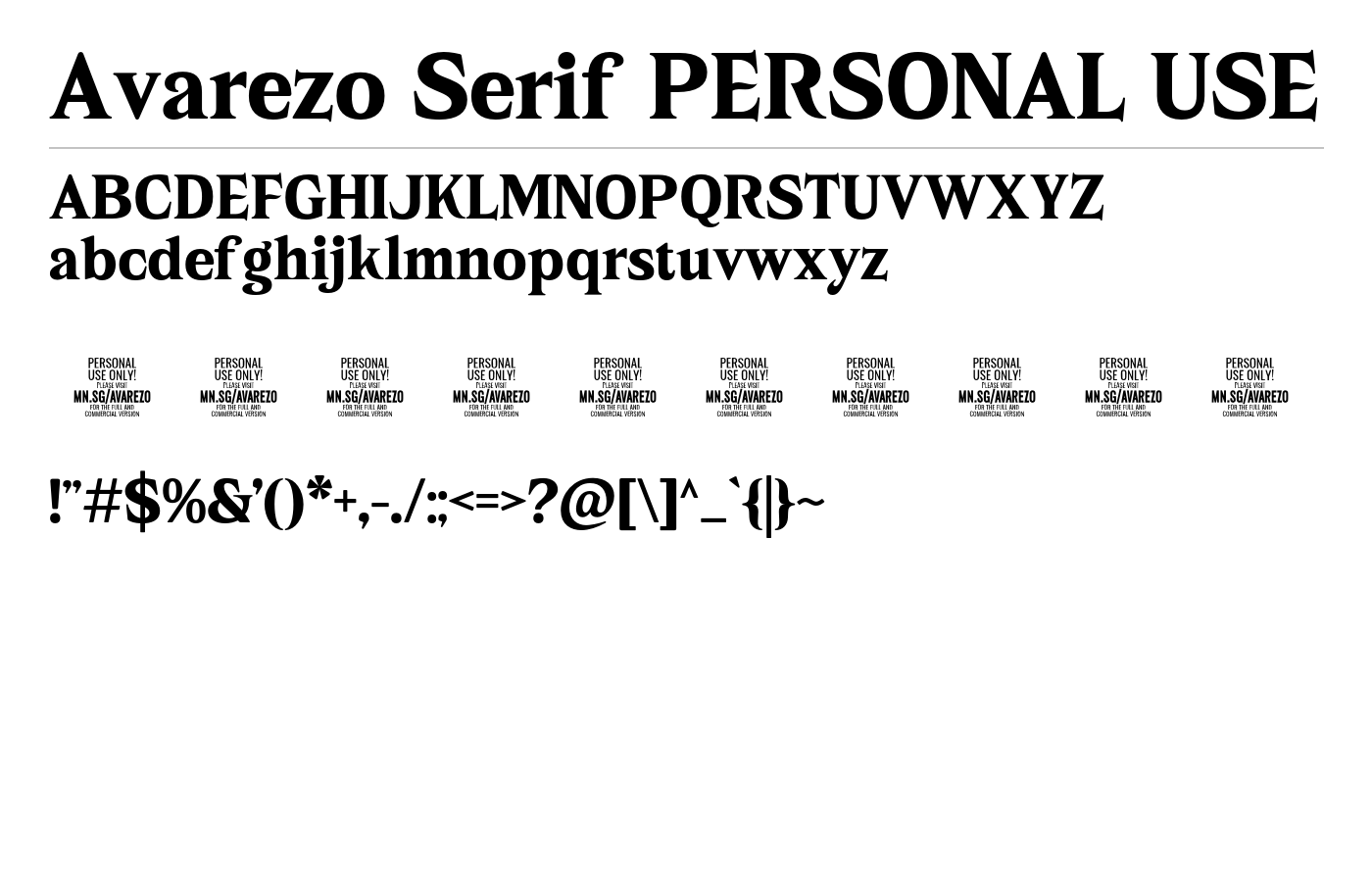
Avarezo Serif is a bold, classic serif font with strong contrast between thick and thin strokes, featuring traditional bracketed serifs and elegant, slightly condensed letterforms. Its solid structure and refined details make it ideal for sophisticated editorial design, logos, and headlines where a timeless and authoritative presence is desired. This font conveys a sense of professionalism and heritage, perfect for brands seeking a classic yet impactful look.
Avarezo Serif PERSONAL USE Font
About Avarezo Serif PERSONAL USE Font